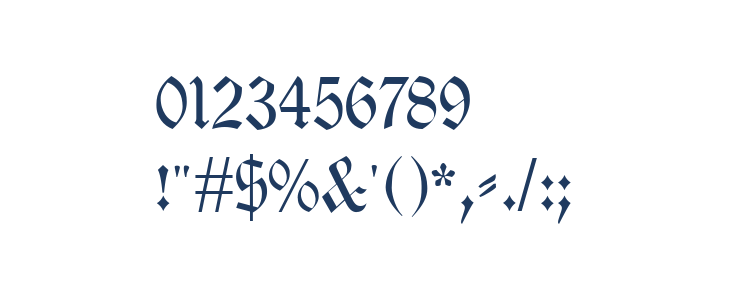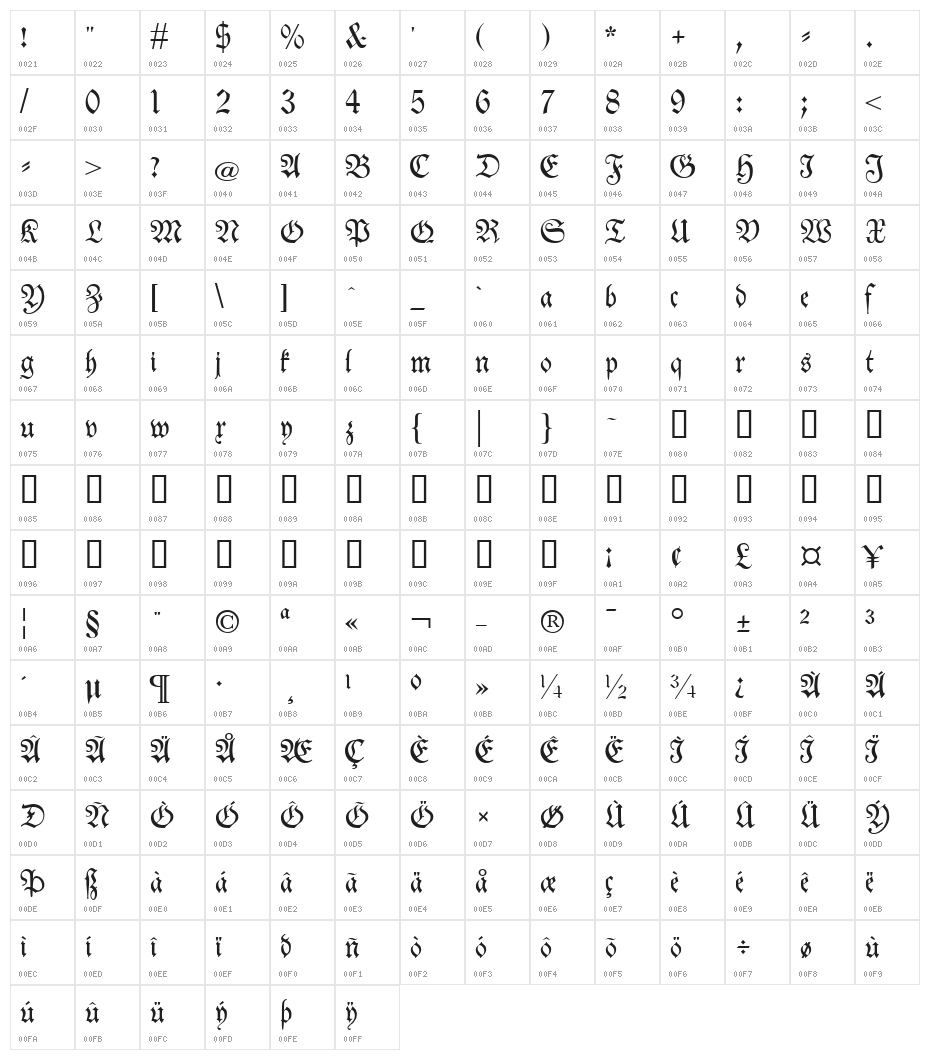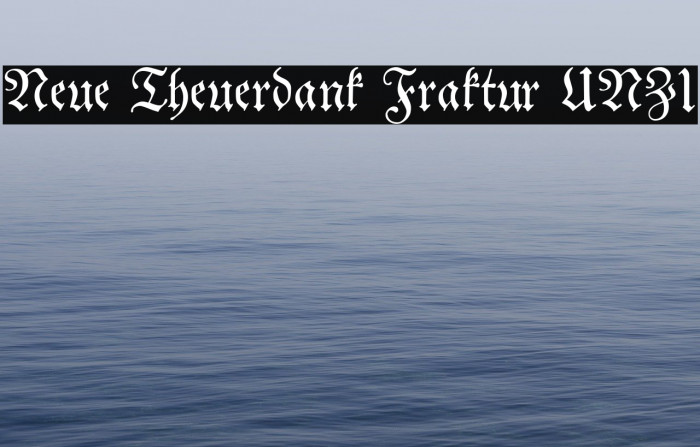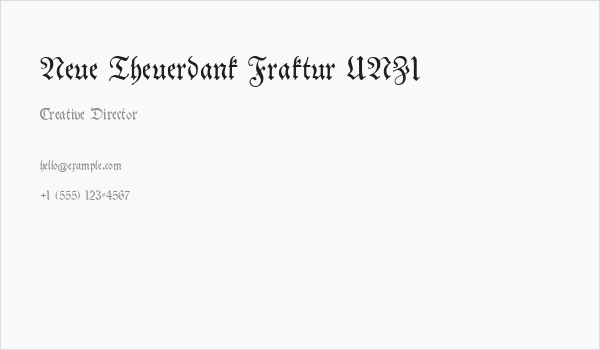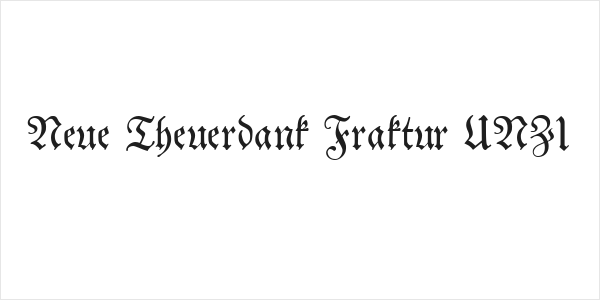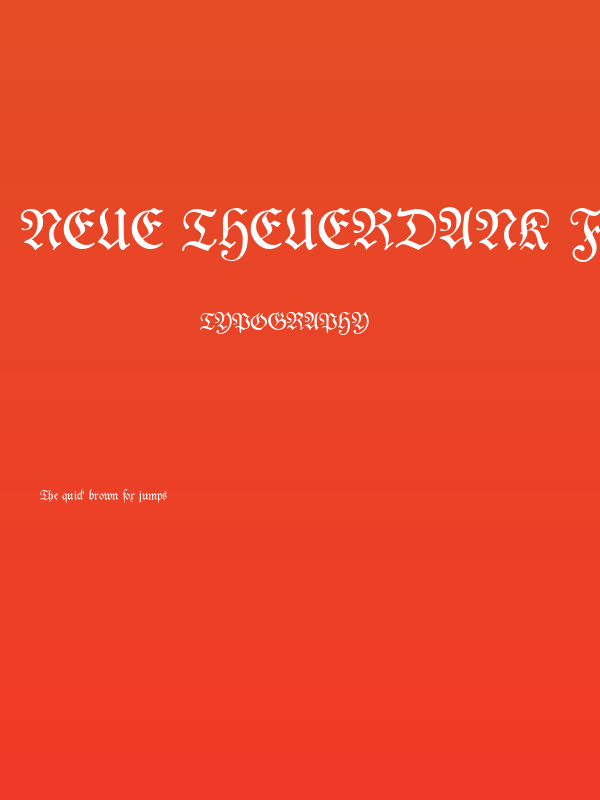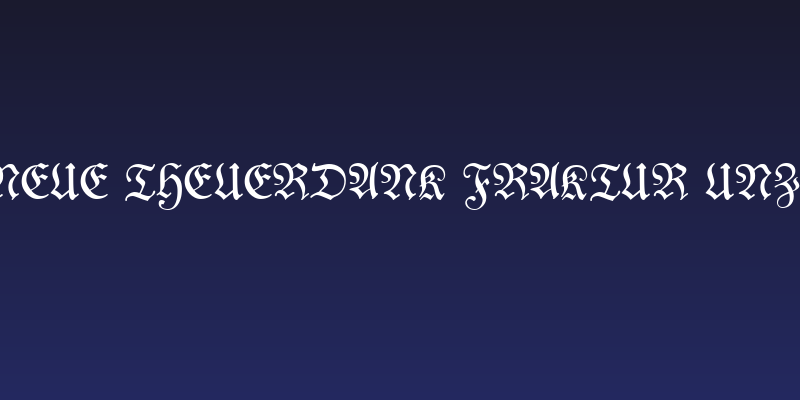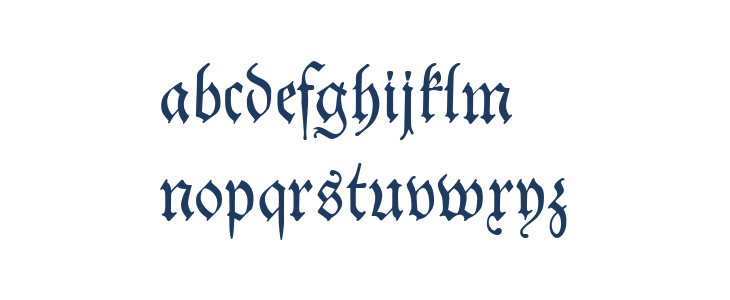
Neue Theuerdank Fraktur UNZ1 Font
Neue Theuerdank Fraktur UNZ1 Description
This font exhibits a traditional blackletter style, characterized by its intricate and ornate letterforms. The uppercase letters are bold and dramatic, with sharp angles and decorative flourishes that evoke a sense of historical elegance. The lowercase letters maintain this intricate design, featuring unique curves and pointed edges that enhance the font's gothic aesthetic. The numerals are consistent with the overall style, offering a bold and striking appearance. Special characters are equally ornate, adding to the font's decorative appeal. This font is ideal for projects that require a touch of medieval or historical flair, making it suitable for use in formal invitations, certificates, or branding that seeks to convey a sense of tradition and sophistication.
Overall StyleVintage
Proposed ProjectsIdeal for formal invitations, certificates, historical branding, and decorative projects.